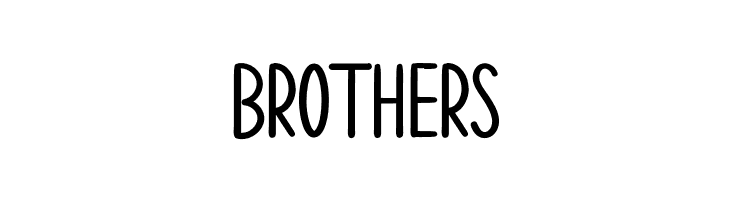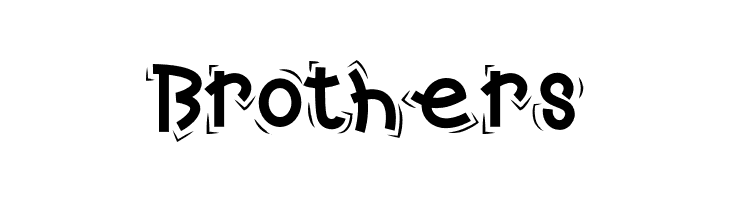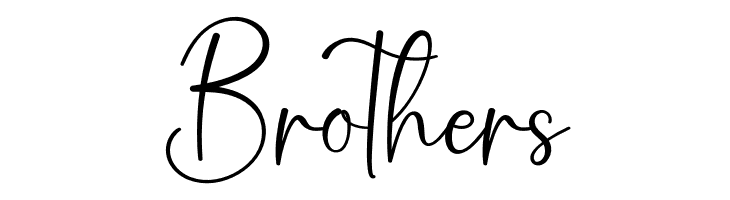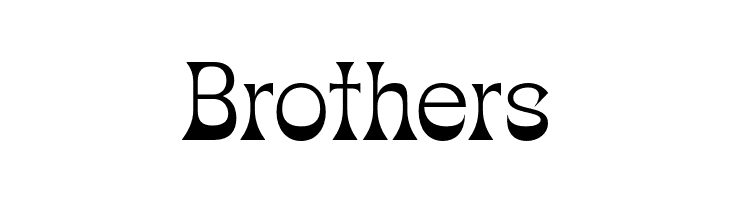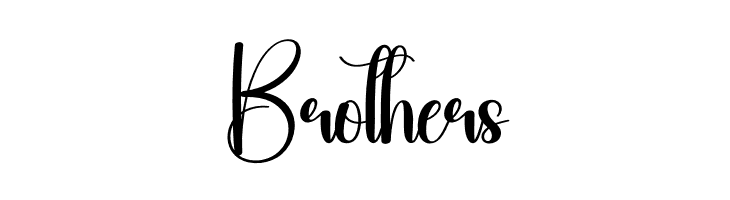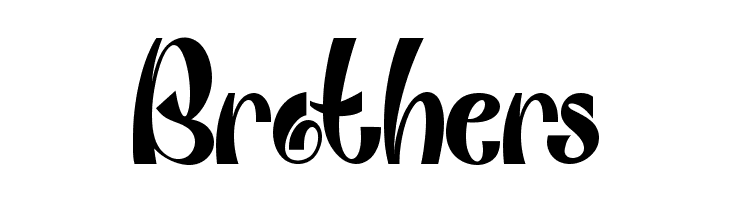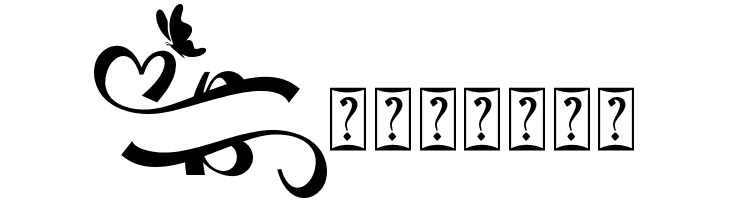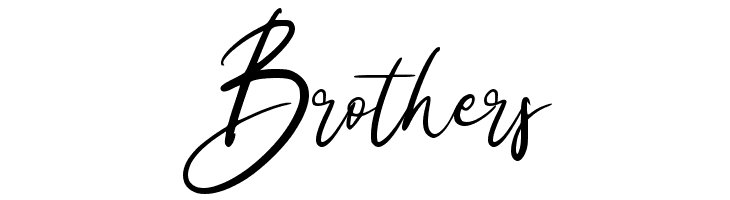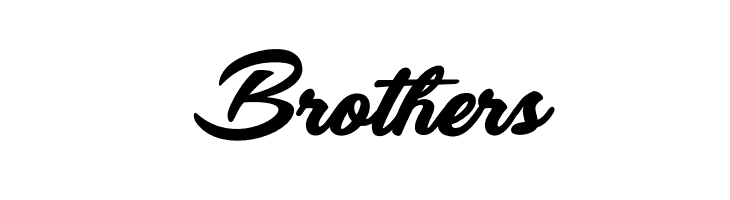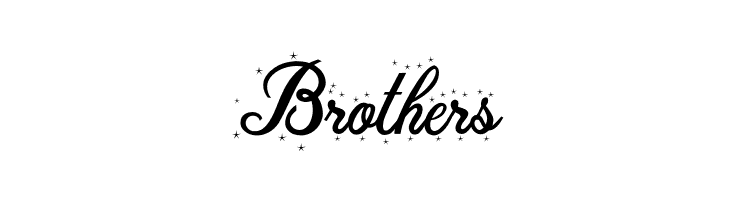
A bold, decorative font with festive swirls and playful shapes.
Ornamental monogram font with heart and butterfly motifs.
A whimsical, handwritten script with tall, looping forms and festive flair.
Expressive handwritten script with tall, narrow, and connected letters.
Whimsical Christmas-themed dingbat illustrations.
Decorative serif font with high contrast and festive, ornamental style.
A playful, festive font with bold, exaggerated strokes and a shadow effect.
Whimsical, handwritten script with tall, narrow characters.
A playful, festive font with tall, narrow letters and rounded edges.
A playful, whimsical script font with a handwritten style.
A whimsical and festive script font with elegant, flowing cursive letters.
An elegant script font with ornate swashes and a calligraphic style.
A playful, Christmas-themed decorative font with festive embellishments.
A festive script font with Christmas tree motifs on uppercase letters and numbers.
A festive cursive script with Christmas tree decorations, ideal for holiday themes.
A festive dingbat font with charming Christmas-themed illustrations.
Bold, cursive script with connected, flowing strokes.
A playful, handwritten font with a festive, whimsical style.
A playful, handwritten font with tall, narrow characters and a whimsical style.
A playful, handwritten font with snowflake-like star embellishments.
A playful, italic script font with snowflake accents, perfect for festive designs.
A playful, festive script font with elegant loops and holiday-themed elements.
A whimsical and elegant handwritten script font with flowing lines and artistic flourishes.
Festive, star-accented script font with holiday-themed embellishments.
A festive, ornament-adorned font perfect for holiday projects.
An elegant calligraphy font with flowing strokes and decorative flourishes.
A fluid and elegant handwritten font with a casual yet sophisticated style.
A bold, cursive script font with a hand-drawn, energetic style.
A playful and elegant script font with a handwritten appearance.
A bold, handwritten font with a playful and casual style.
A bold, playful font with rounded, hand-drawn strokes.
A bold, italic font with dynamic, slanted characters and thick strokes.
An elegant script font with flowing, cursive strokes and graceful loops.
A modern, handwritten script font with elegant, flowing lines.
A sophisticated, cursive script font with a flowing, handwritten style.